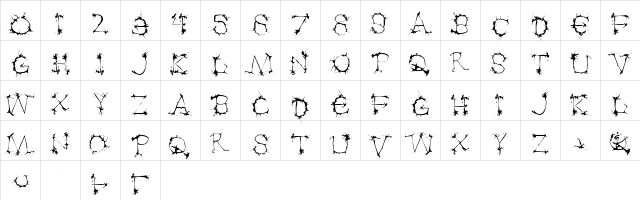
Klexalfabeta Regular
Design Context for Klexalfabeta Typeface
Klexalfabeta is a composed and adaptable typeface that performs quietly and consistently across a wide range of design contexts.